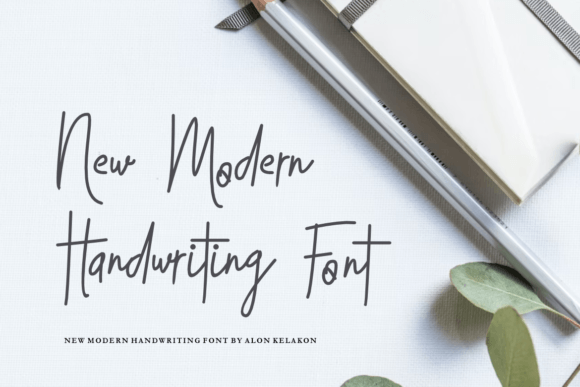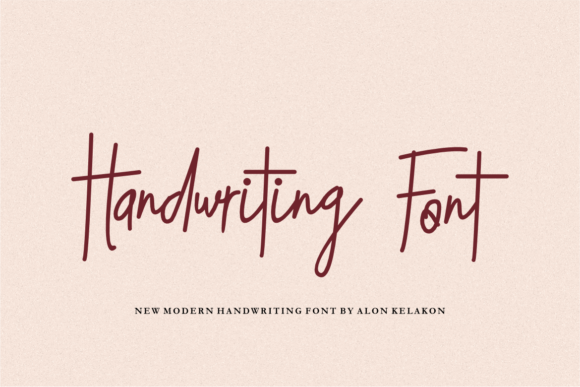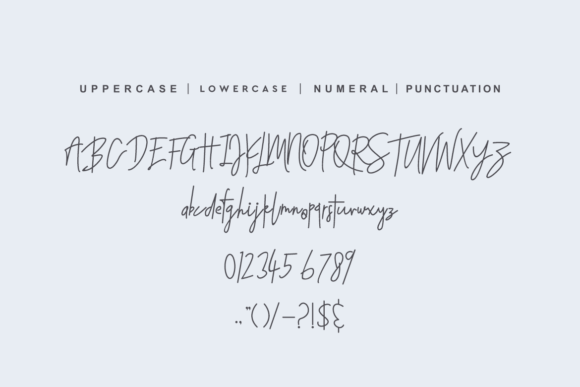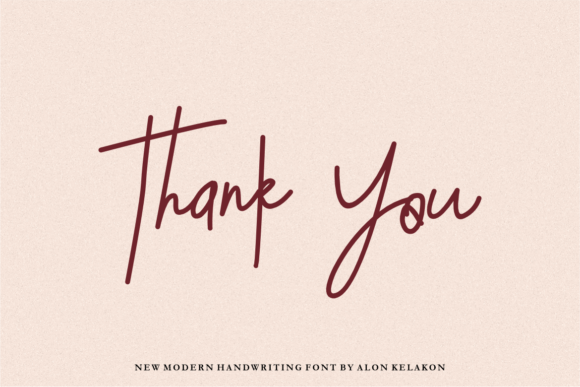
Unleash Your Creativity with Cantikia Rosalina Font
Have you ever been brainstorming ideas for a new project, and suddenly, a burst of inspiration hits you? You see a vision of vibrant colors, unique typography, and a dash of personality that sets your design apart from the rest. That’s exactly what happens when you discover the perfect font – and we’re excited to introduce you to the Cantikia Rosalina Font.
This beautiful handwritten font is designed to bring a touch of elegance and sophistication to your designs. Whether you’re creating labels, logos, movie titles, or album covers, Cantikia Rosalina Font is the perfect companion to help you express your artistic vision. Its versatility and uniqueness make it an invaluable asset for designers looking to add a personal touch to their work.
Cantikia Rosalina Font Key Features
- Font Family: Cantikia Rosalina
- Unique Characteristics: This elegant script font features beautiful, flowing connections and subtle flair, making it perfect for adding a touch of sophistication to any design.
- Font Style: This font is available in Regular and Bold styles, offering flexibility for various design applications.
Cantikia Rosalina Font Review
I recently had the chance to work with the Cantikia Rosalina font, and I must say it’s a unique and charming addition to any design project. ✨ One of the things I appreciate about this font is its elegant and refined aesthetic. The intricate details and ornate flourishes add a touch of sophistication to any text, making it perfect for high-end branding and packaging designs.
Here are some of the things that work well with the Cantikia Rosalina font:
- ✨ Elegant and refined aesthetic
- ✨ Perfect for high-end branding and packaging designs
- ✨ Intricate details and ornate flourishes
However, there are some limitations to keep in mind:
- ⚠️ Limited character set and font sizes
- ⚠️ May not be suitable for body text or large blocks of text
- ⚠️ Requires careful kerning and spacing to maintain readability
Overall, I think the Cantikia Rosalina font is a great choice for designers looking to add a touch of elegance and sophistication to their projects. However, it’s essential to be mindful of its limitations and use it in the right context to get the best results.
Getting the Most Out of Cantikia Rosalina Font
Use Cantikia Rosalina Font to add a touch of elegance and sophistication to your designs.
Combine it with bold colors and simple backgrounds for a striking effect.
Cantikia Rosalina Font is perfect for:
Branding and marketing materials
Editorial and publishing designs
Alternative Fonts to Cantikia Rosalina
The Great Vibes Font is a beautiful, elegant, and modern script font that is perfect for creating a sophisticated and luxurious look. It is ideal for use in branding, logos, and advertising materials. Great Vibes Font is more elegant and refined compared to Cantikia Rosalina, which has a more playful and whimsical feel.
The Carolyna Pro Font is a modern, elegant, and sophisticated script font that is perfect for creating a high-end and luxurious look. It is ideal for use in branding, logos, and advertising materials. Carolyna Pro Font is more refined and polished compared to Cantikia Rosalina, which has a more casual and playful feel.
Curlz Font
The Curlz Font is a playful, whimsical, and decorative font that is perfect for creating a fun and lively look. It is ideal for use in advertising materials, social media, and children’s products. Curlz Font is more playful and decorative compared to Cantikia Rosalina, which has a more elegant and refined feel.
The Lato Font is a modern, elegant, and sophisticated sans-serif font that is perfect for creating a clean and minimalist look. It is ideal for use in branding, logos, and advertising materials. Lato Font is more minimalist and clean compared to Cantikia Rosalina, which has a more elegant and refined feel.
Creative Project Ideas with Cantikia Rosalina Font